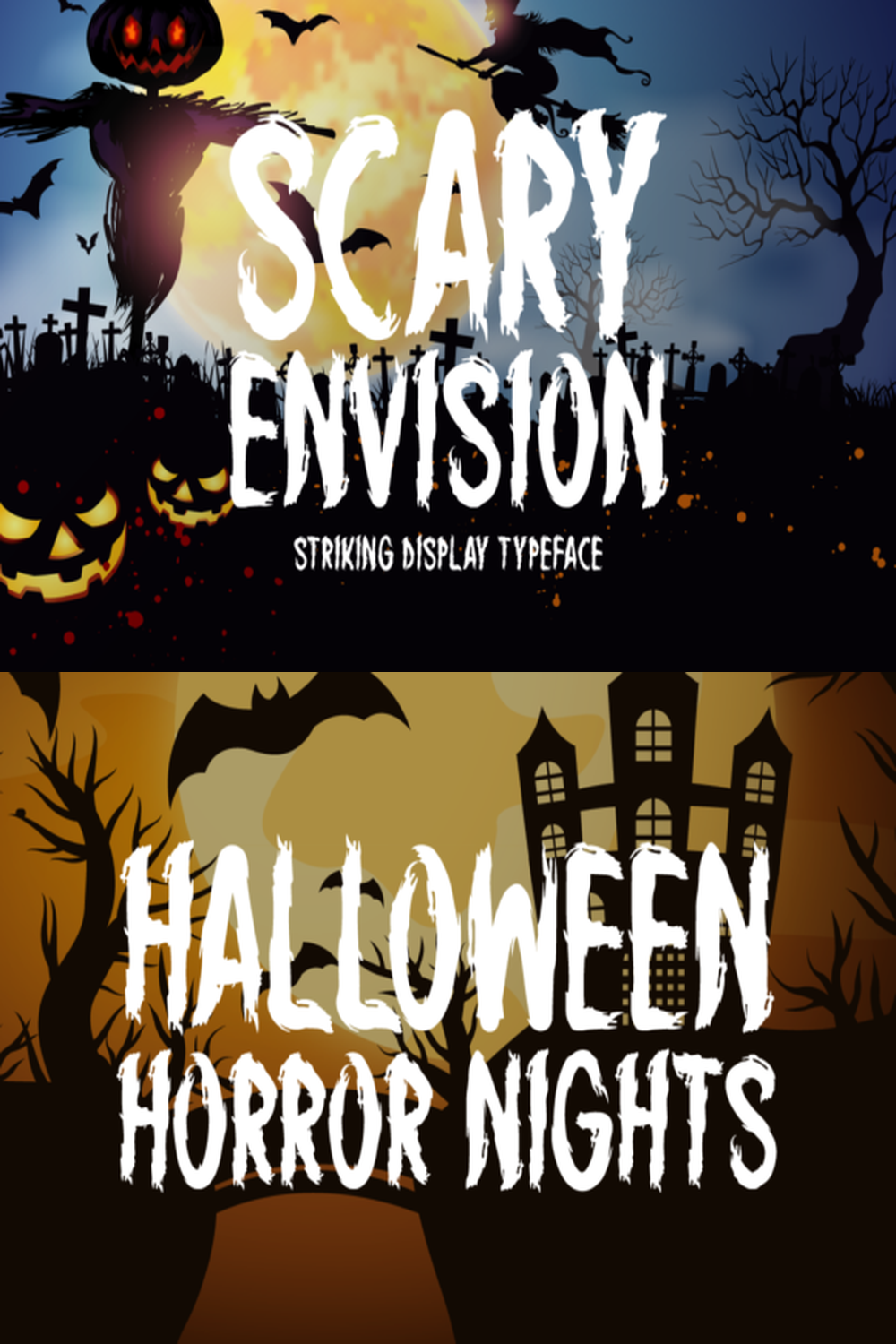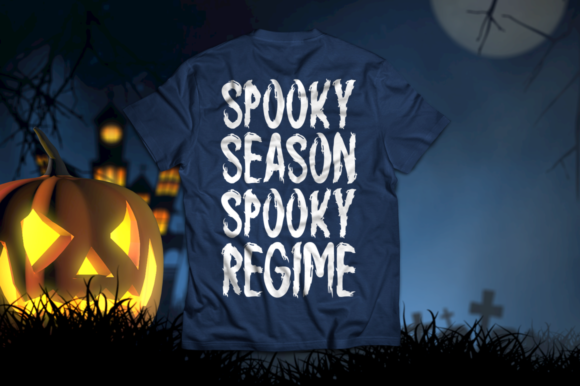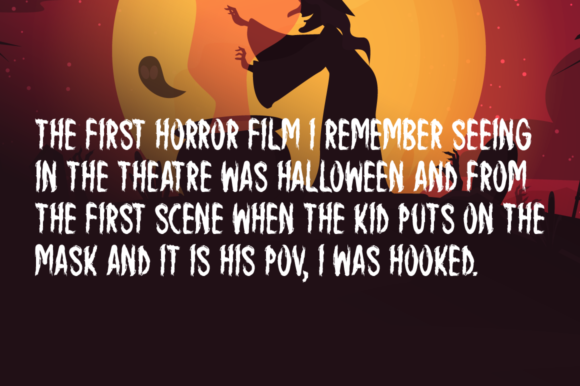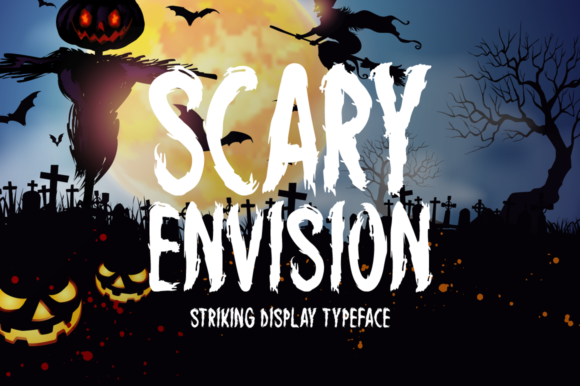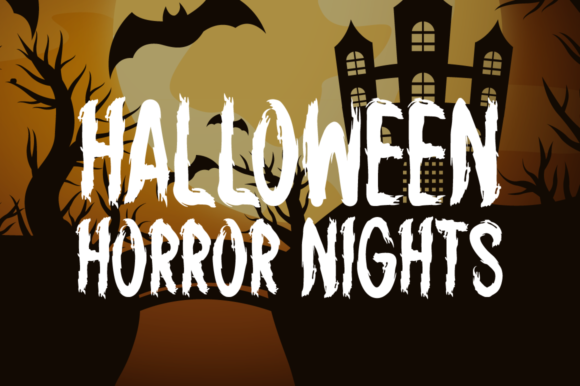
Scary Envision Font
About the Scary Envision Font
Presenting Scary Envision Font, a unique and stylish typeface that will make your work stand out. Scary Envision is a casual and creepy-looking display font. It is perfectly suitable for any Halloween-related project or crafty idea! The only limit is your imagination.